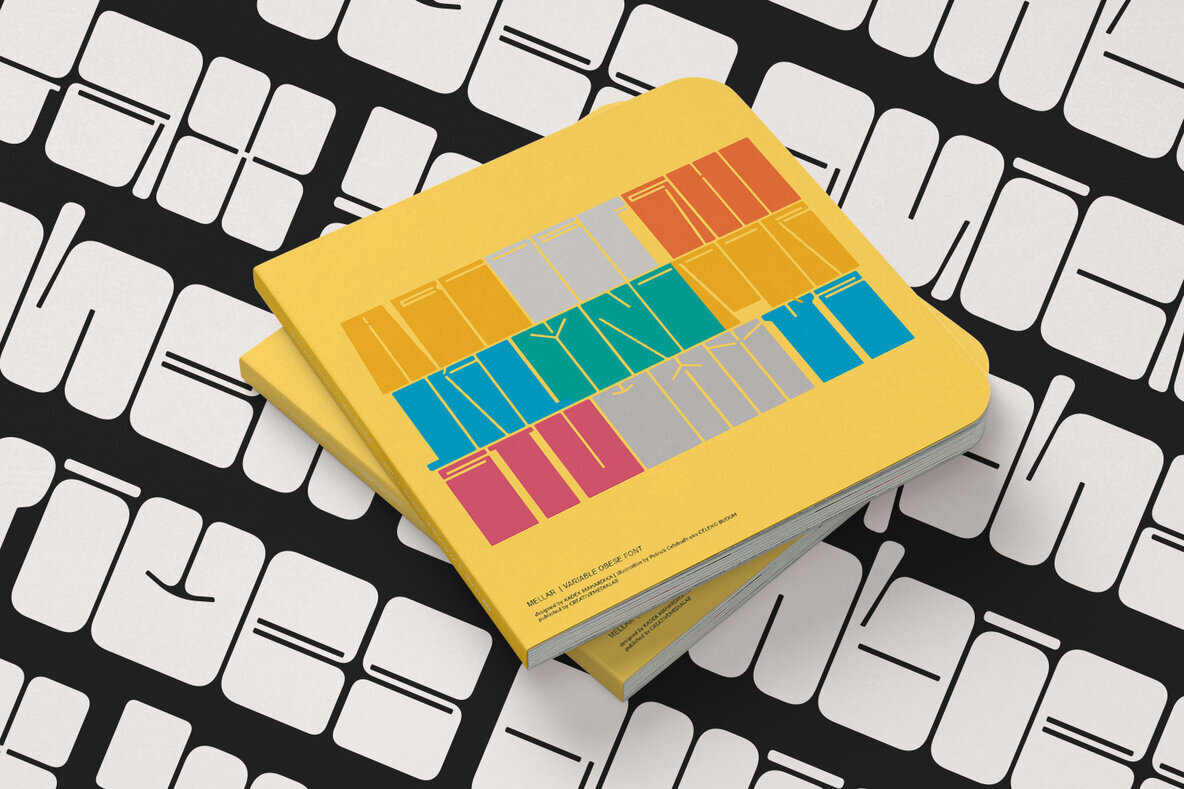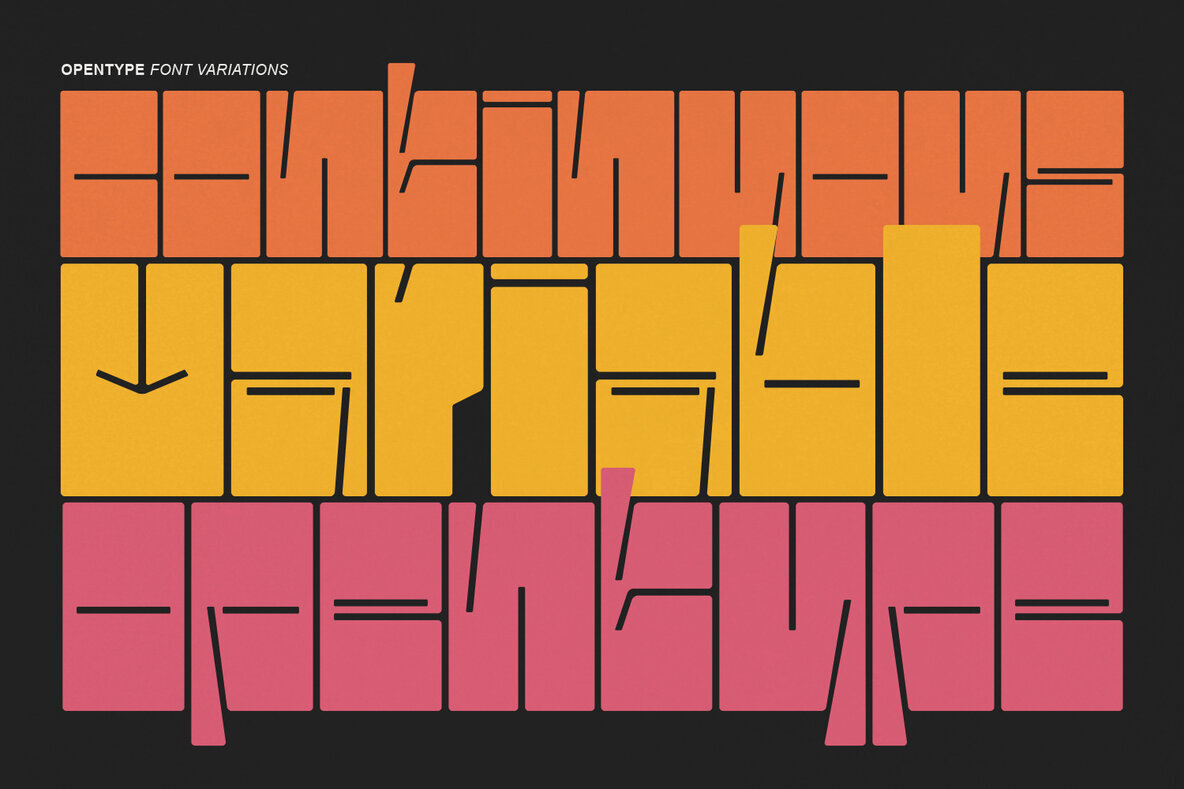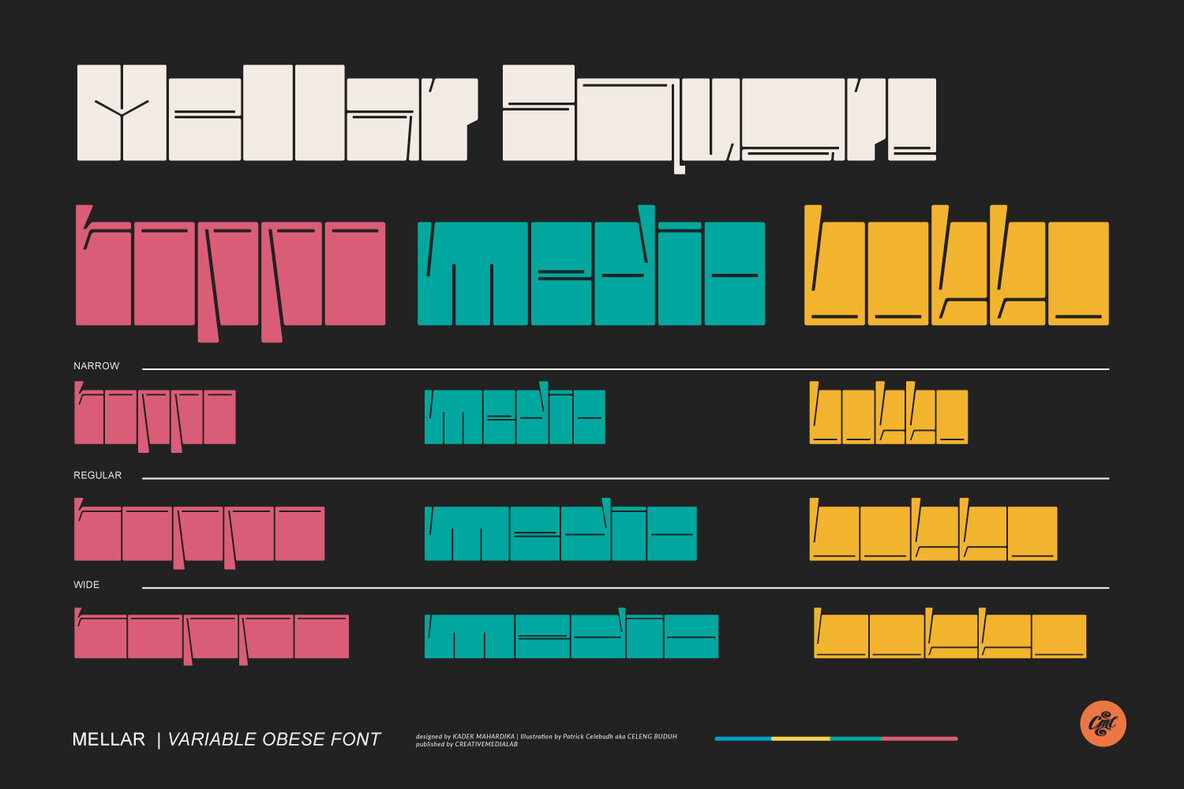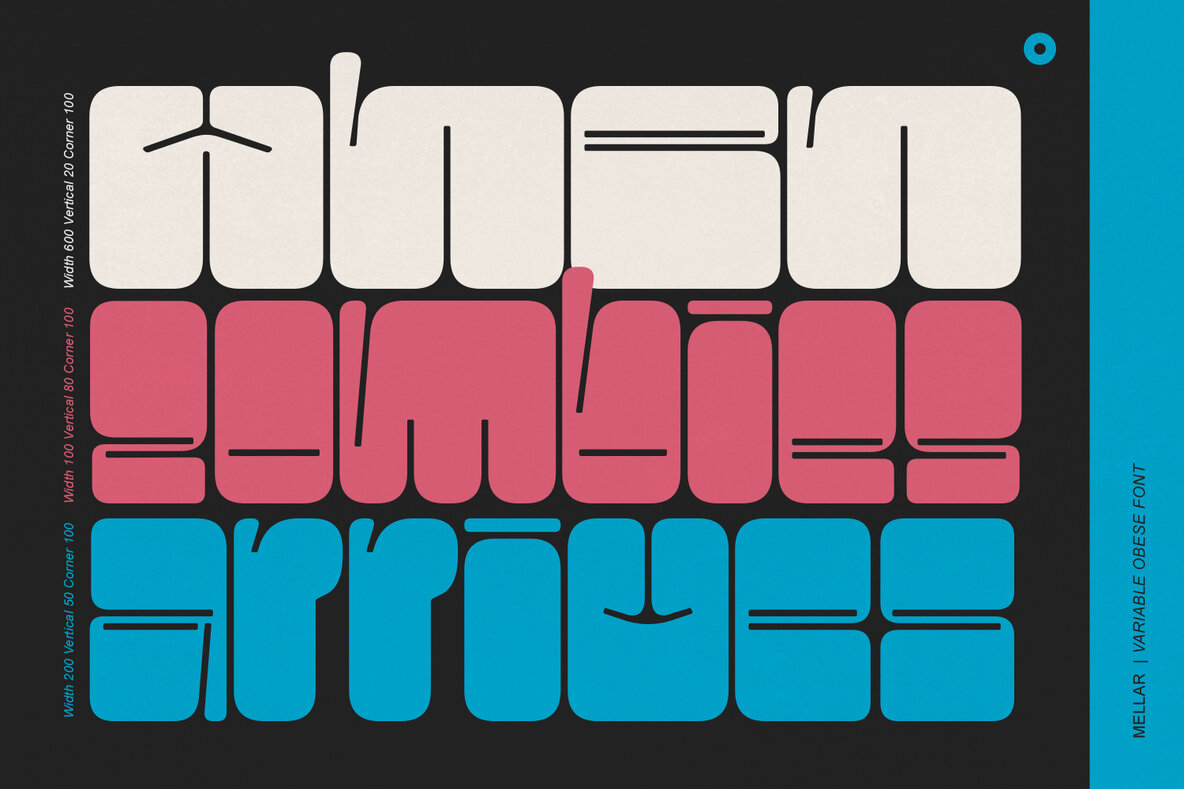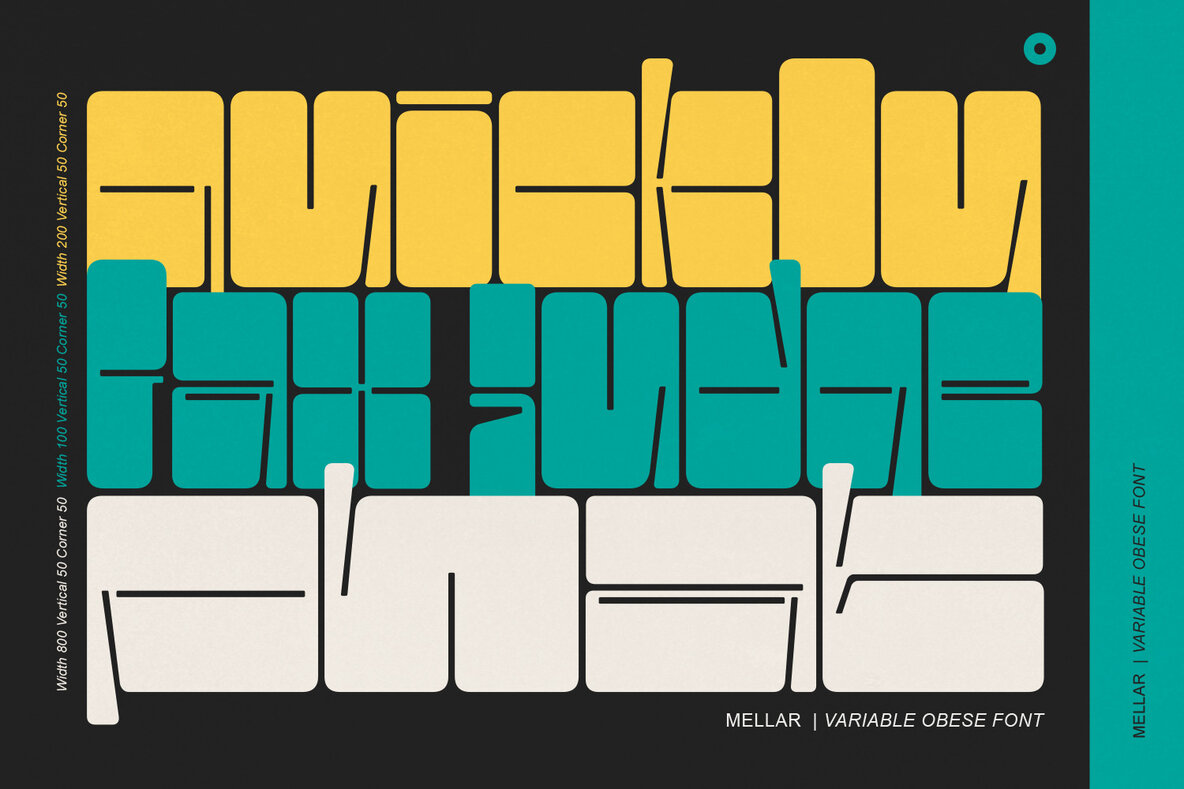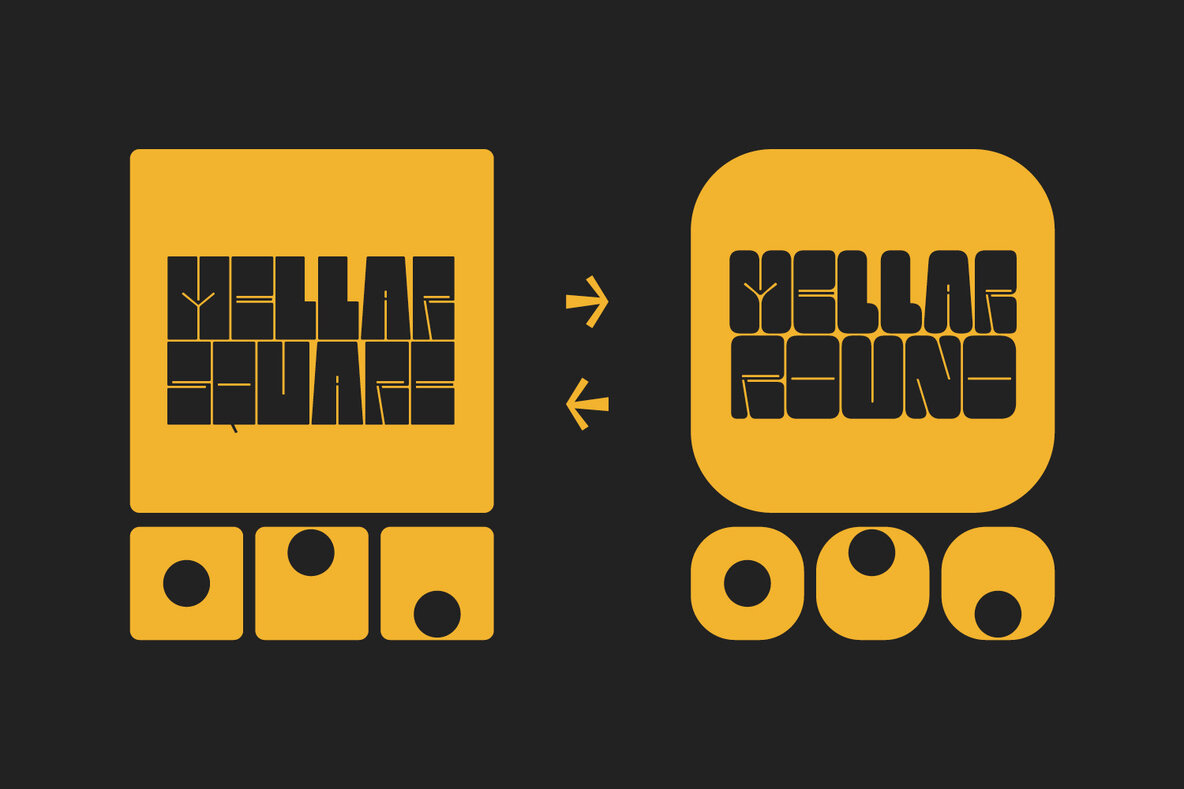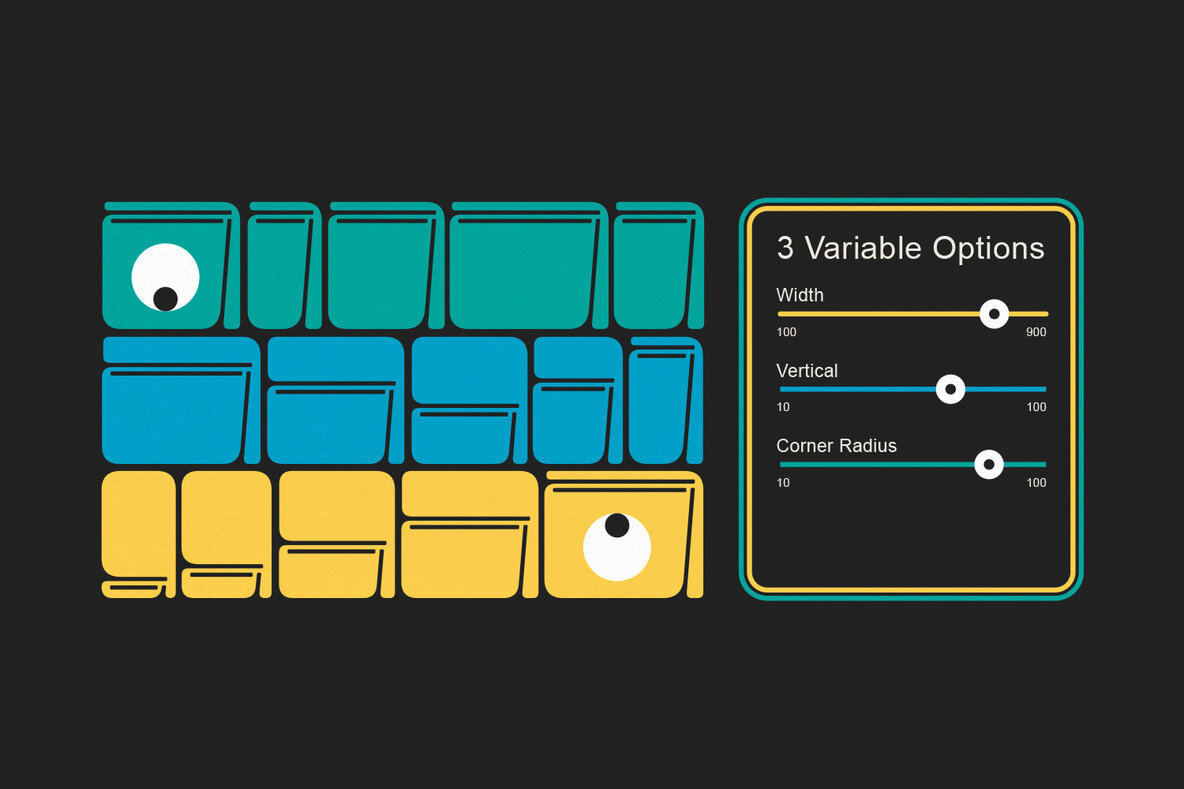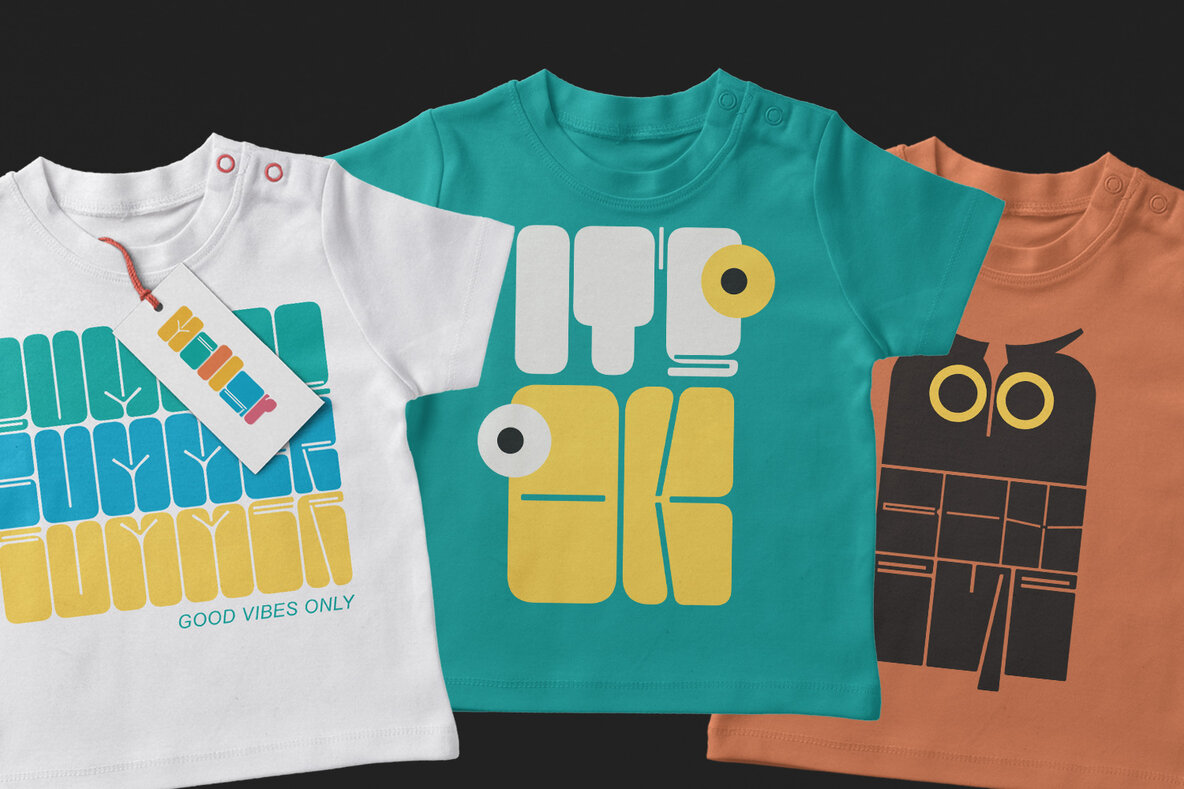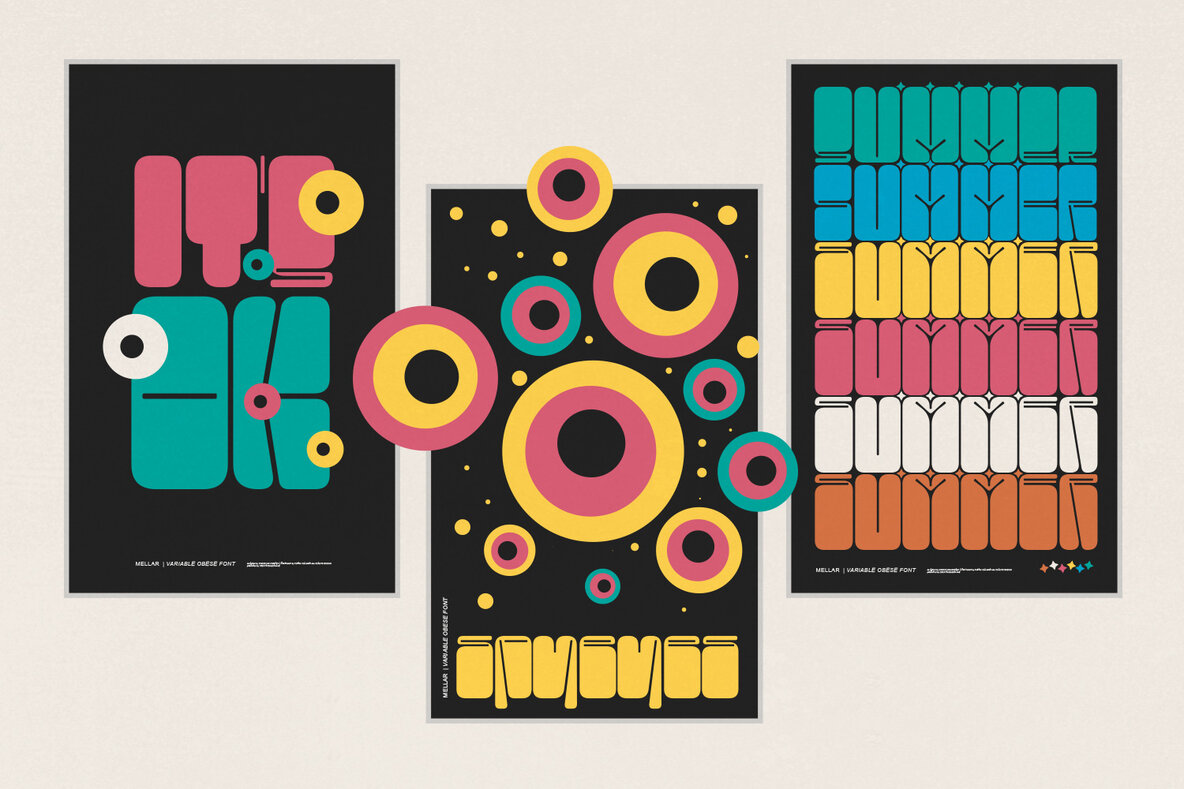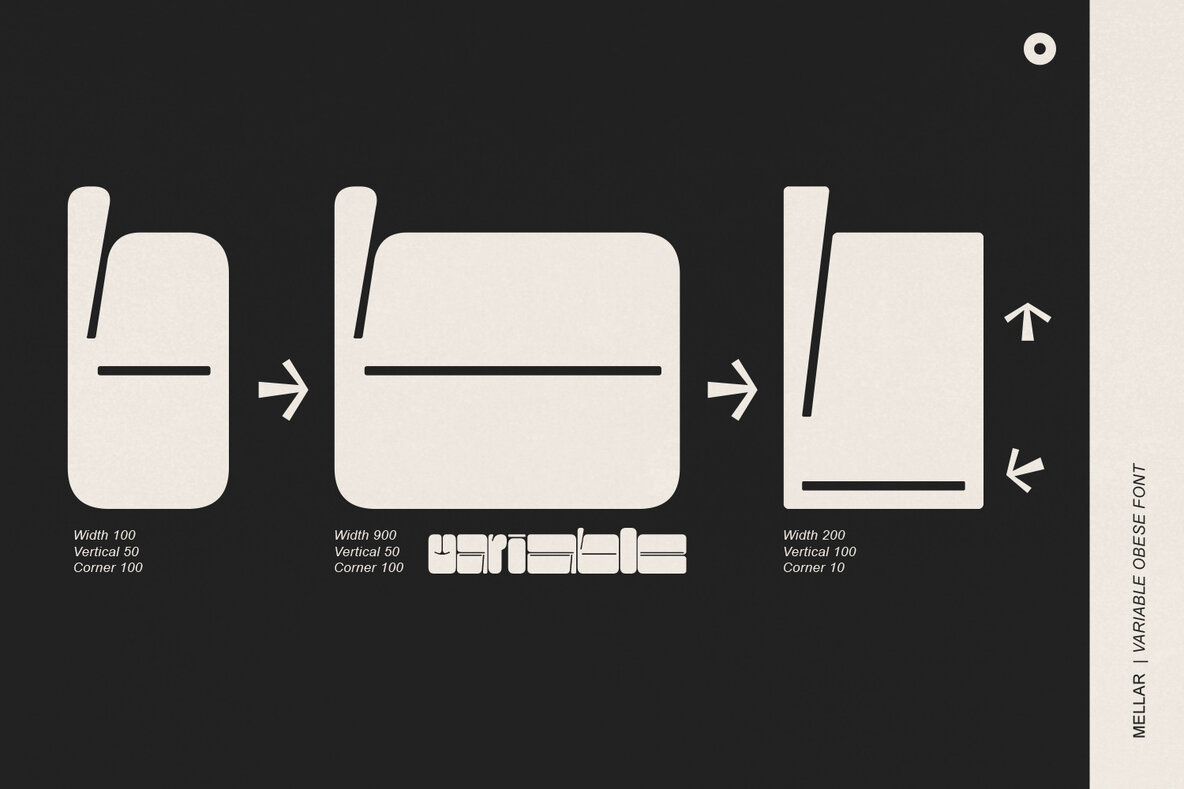
Mellar Font
Introducing Mellar, an unconventional and strikingly hefty font that exudes simplicity and modernity. Comprising of two unique styles - round and square, and three widths - Toppo, Medio, and Botto, it offers immense versatility. Mellar shines as a variable font, officially classified as Open-Type Font Variations, giving you the power to generate numerous styles with its three adjustable axes. Imbued with a playful, jovial vibe, Mellar will revamp your designs and is an ideal choice for apparel, book covers, titles, and more.